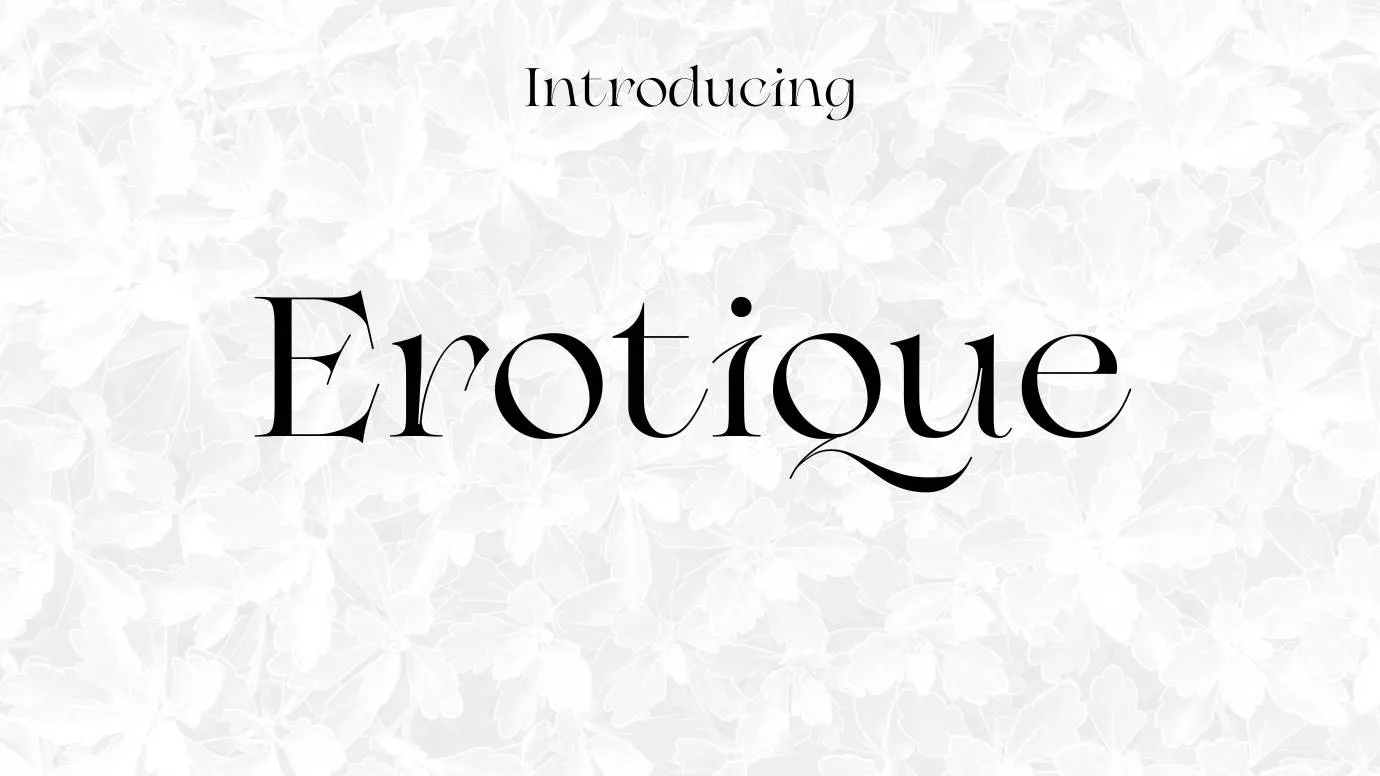
Erotique Font Family is a serif-type font that is a stylish and eye-catching look. This font has thin and small swash corners that make it more beautiful. This stylish typography was finally designed by multiple designers.
The look of this font is high-contrast and effective for different designs. This modern font has many similar fonts that are mostly used for making pairing with this typeface like sage font.
Erotique Font
Name Erotique Font
TypeSerif
DesignerCosimo Lorenzo Pancini and Solenn Bordeaux
Foundry Zetafonts